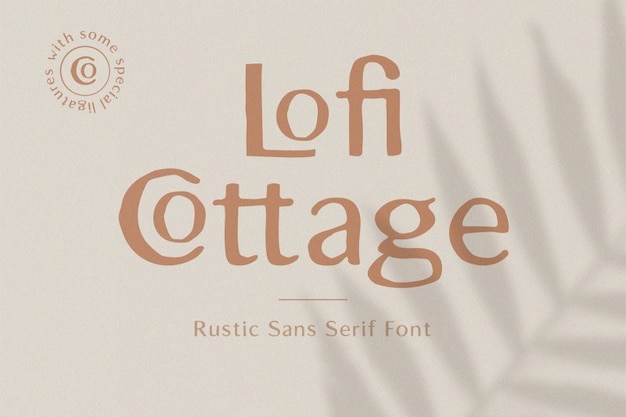
Lofi Cottage Font
Lofi Cottage font embodies rustic elegance with a touch of simplicity. Each character exudes the charm of a countryside retreat, turning your text into a refined work of art. It's the ideal choice for projects that seek to strike a balance between rustic beauty and timeless sophistication. Lofi Cottage effortlessly marries rustic simplicity with an elegant edge, making your words a welcoming and visually captivating expression that resonates with both the warmth of rustic living and the grace of timeless elegance.